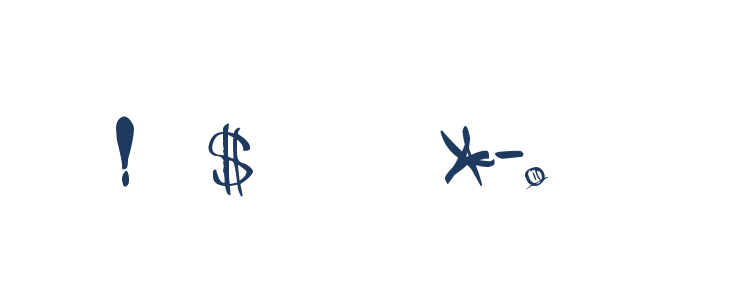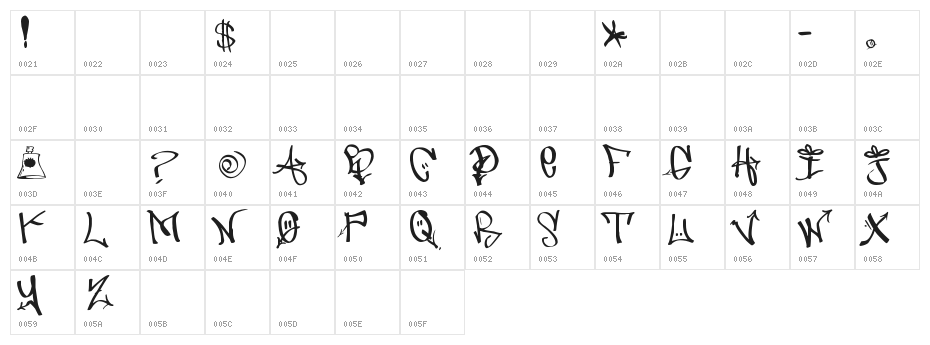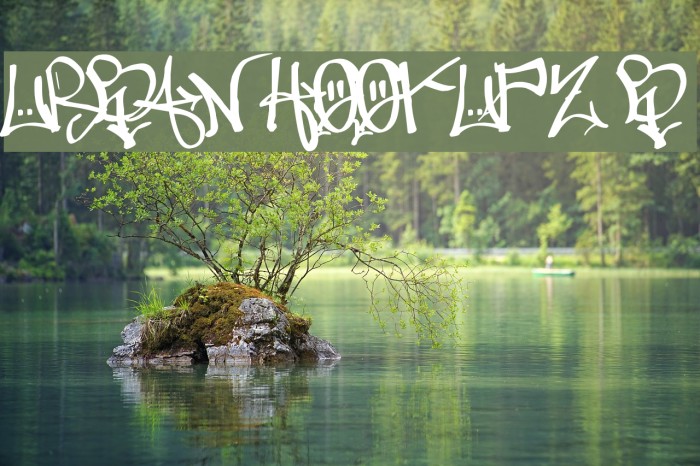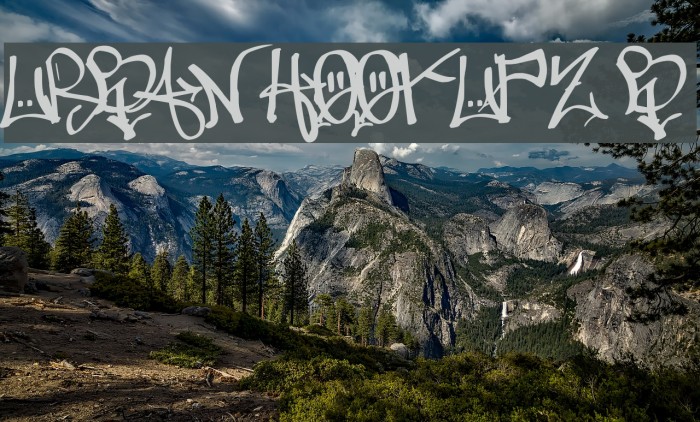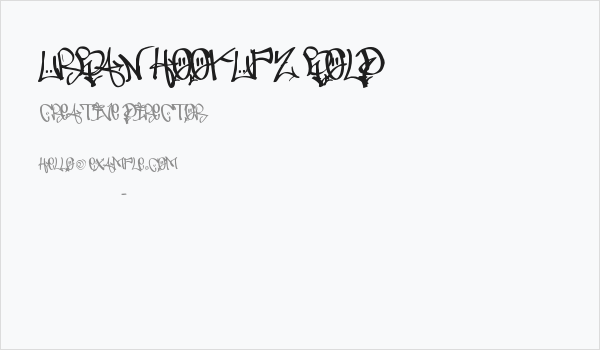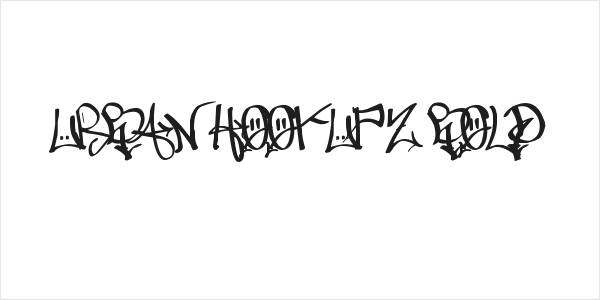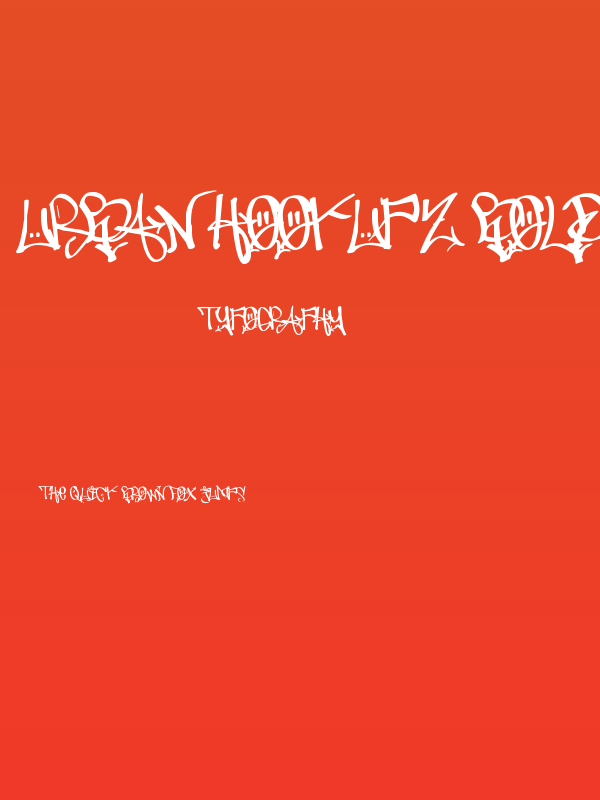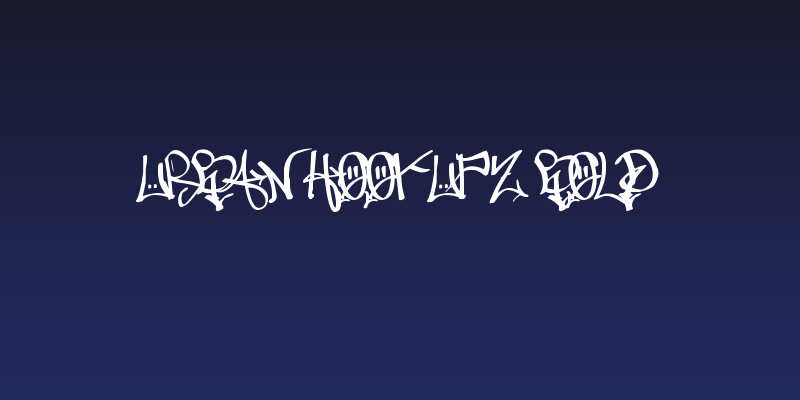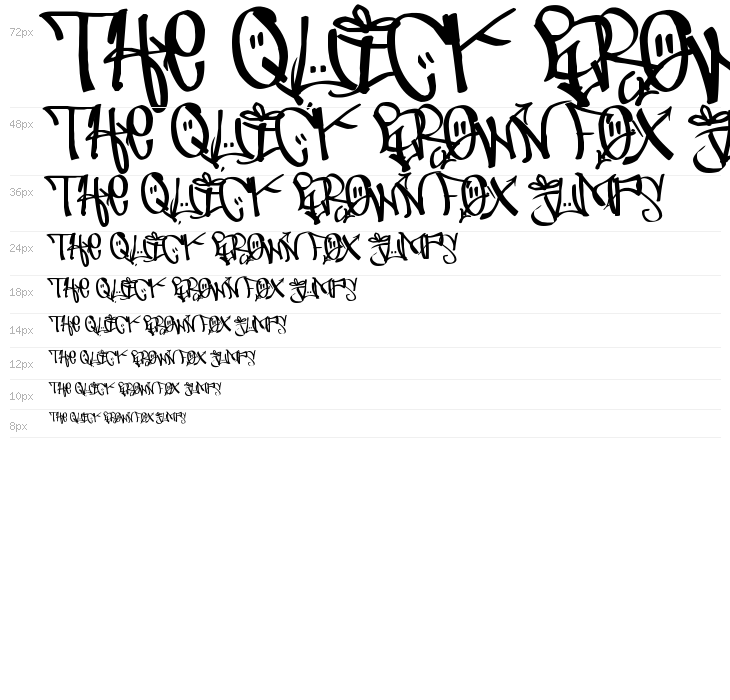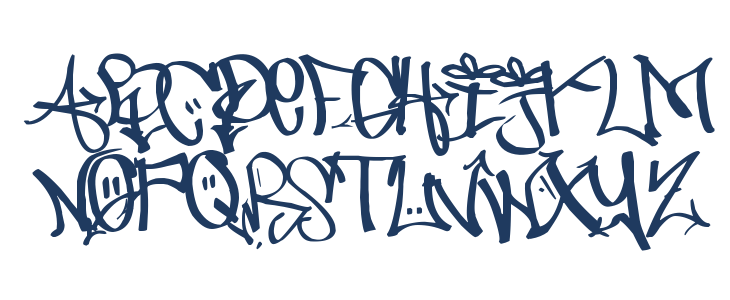
URBAN HOOKUPZ Bold Font
URBAN HOOKUPZ Bold Description
This font is a bold, graffiti-inspired typeface that exudes an urban, edgy vibe. The letters are highly stylized with exaggerated curves and sharp angles, resembling street art and tagging. Each character has a unique flair, with some incorporating playful elements like smiley faces. The uppercase and lowercase letters maintain a consistent style, creating a cohesive look. The special characters, including punctuation marks and symbols, are designed to match the overall aesthetic, adding to the font's rebellious and artistic nature. This font is perfect for projects that aim to capture a youthful, energetic, and unconventional spirit.
| Overall Style | Urban, Graffiti, Edgy |
| Use Case | Logos, Posters, Branding |
| Proposed Projects | Ideal for streetwear branding, music album covers, event posters, and urban-themed designs. |